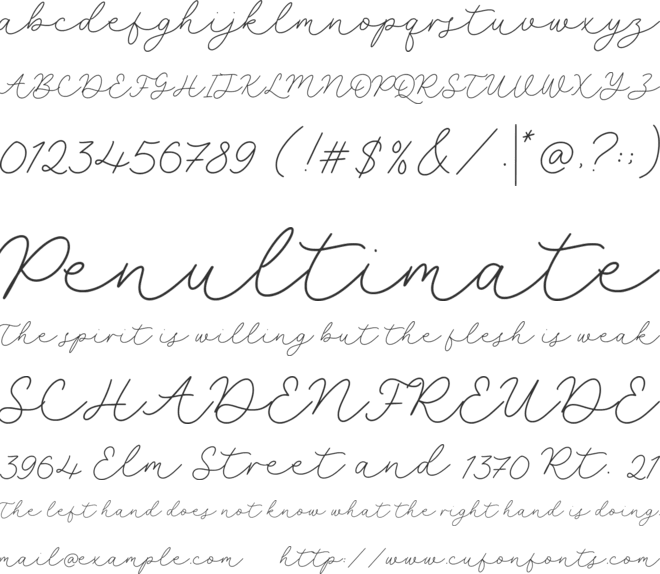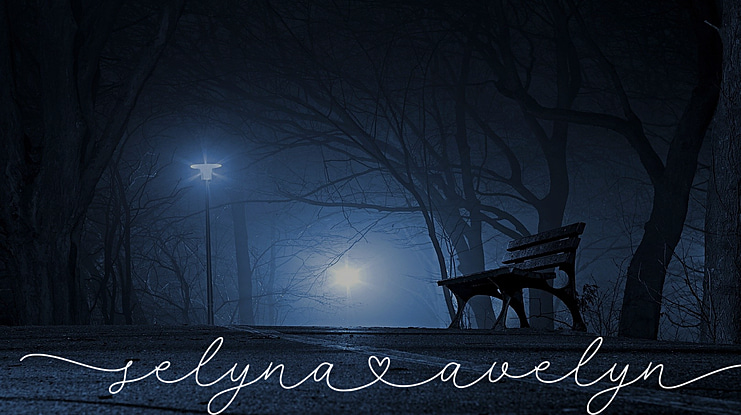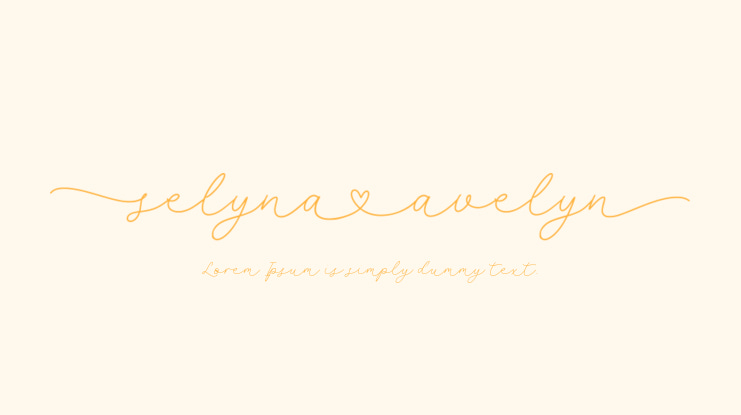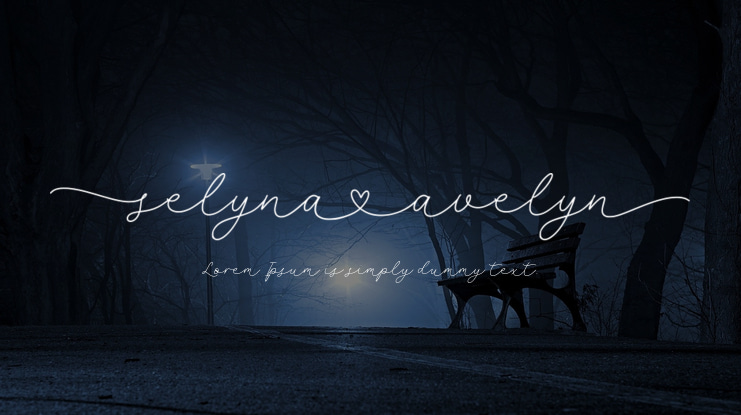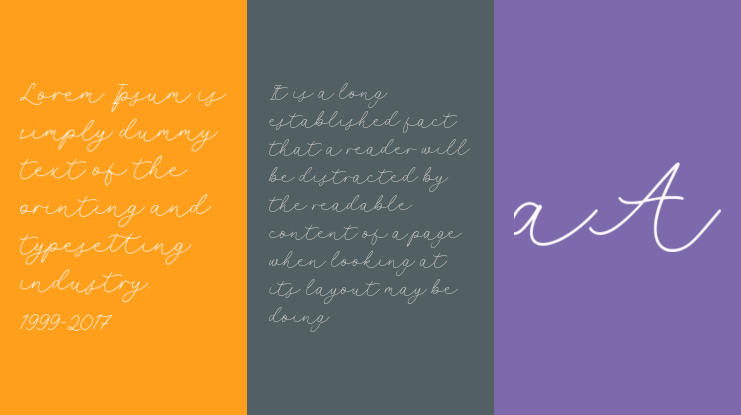
selyna avelyn Font
Introducing by Balpirick Studio.
Proudly Present, Selyna Avelyn Font.
Selyna Avelyn is a Lovely Handwritten Font.
Selyna Avelyn is perfect for product packaging, branding project, megazine, social media, wedding, or just used to express words above the background.
Uppercase & Lowercase font Stylistic Alternates Ligatures Symbols & Punctuation OpenType Features.